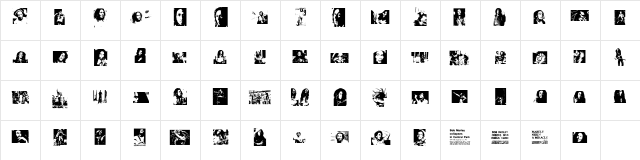
BOB NEVER DIES! Regular
Design Context for BOB NEVER DIES! Typeface
BOB NEVER DIES! is a composed and adaptable typeface that performs quietly and consistently across a wide range of design contexts.